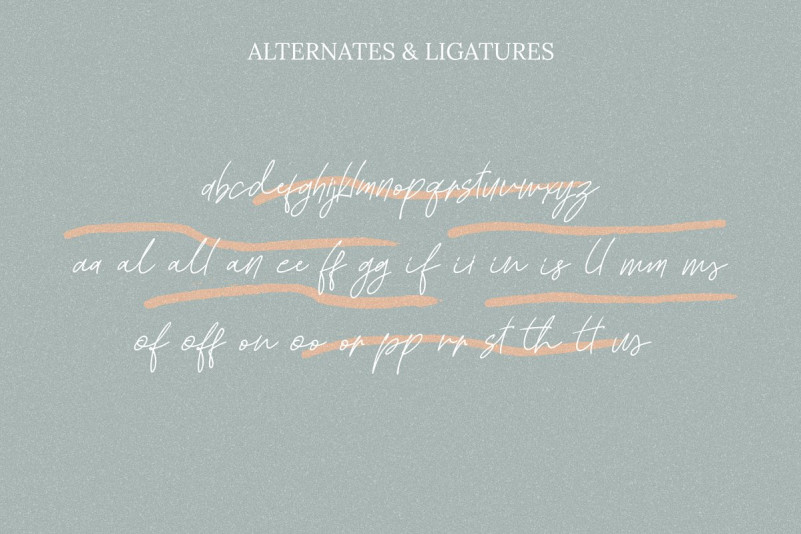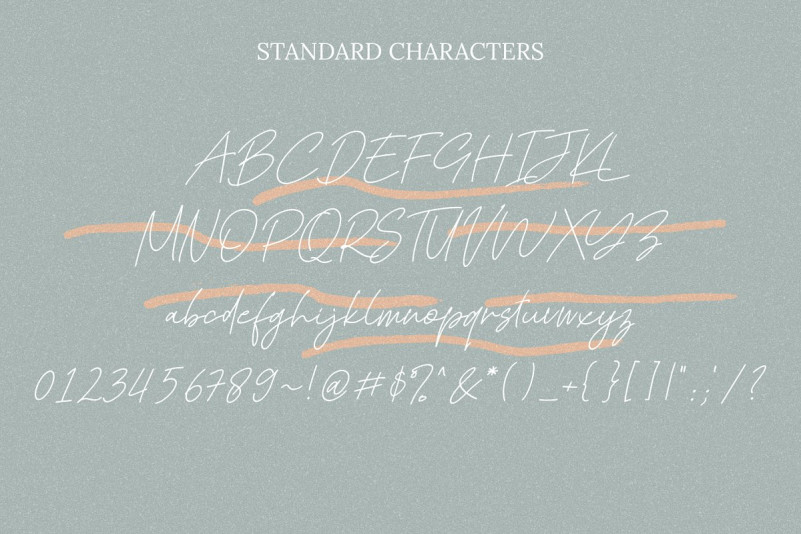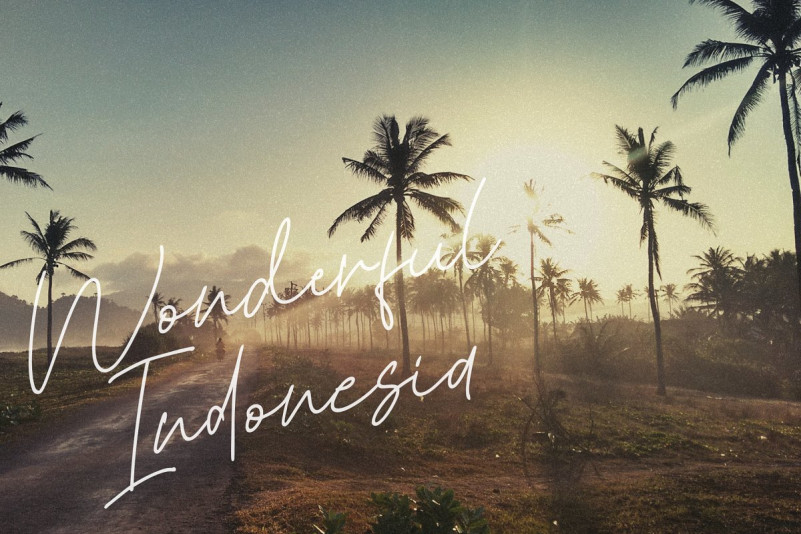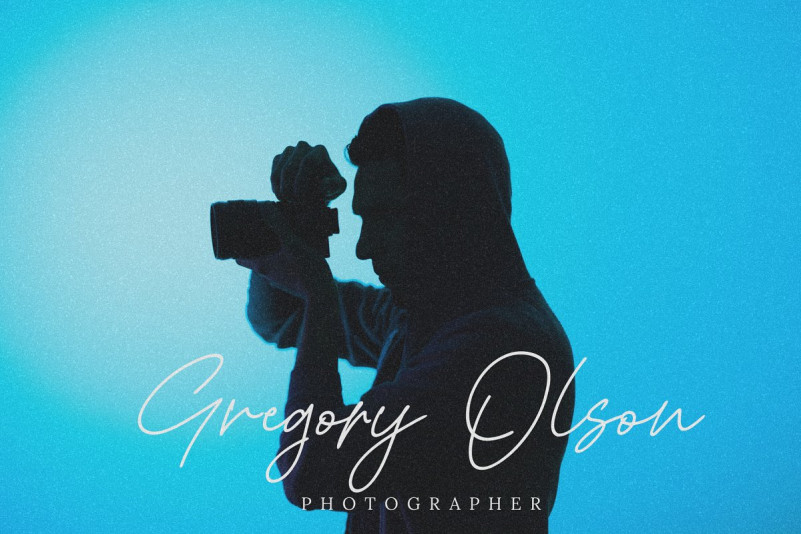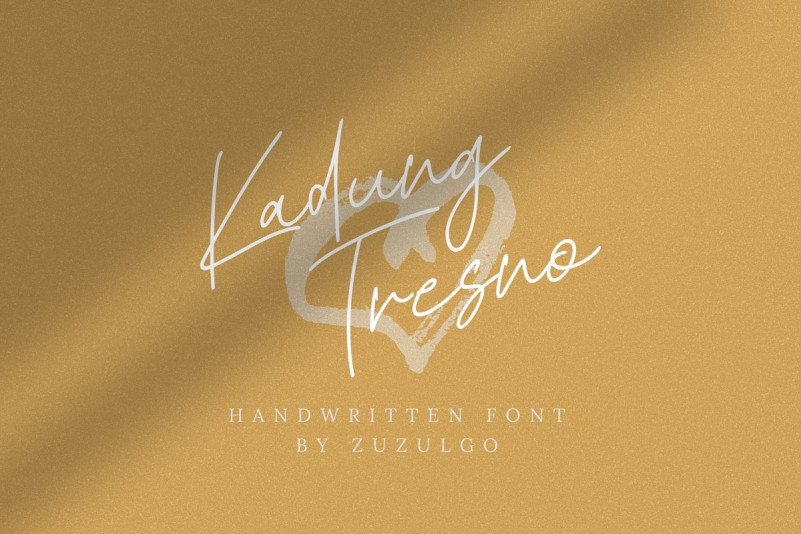
Kadung Tresno Handwritten Font
Introducing Kadung Tresno Font – A elegant signature script font with original handwriting style, looks very natural and beautiful. It is designed and shared by zuzulgo. Kadung Tresno Handwritten is a fresh and modern signature font, handmade for an authentic and stunning look. Use this for logotype and headlines for a cool and hip feel. This is perfect for invitations, signatures, blogs, social media, business cards, brands